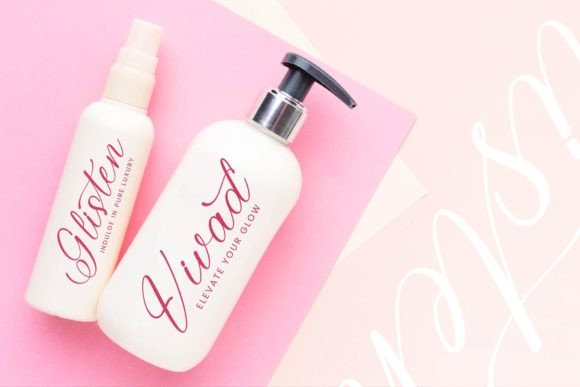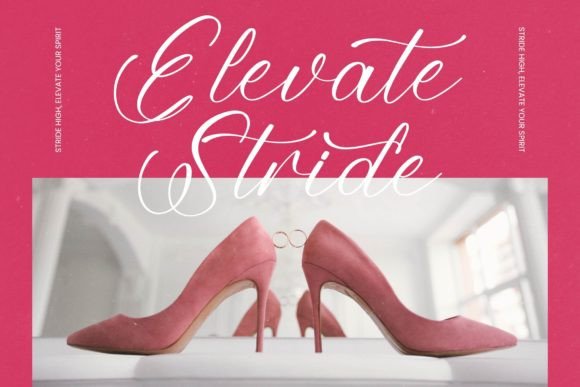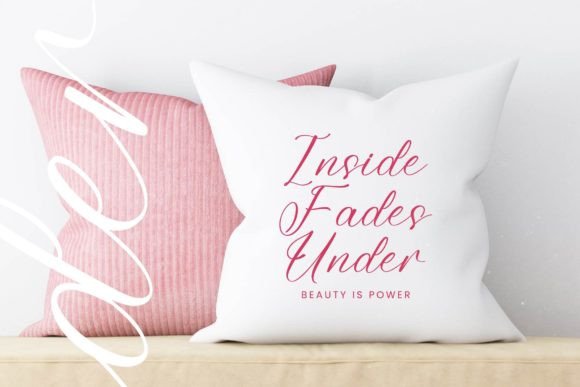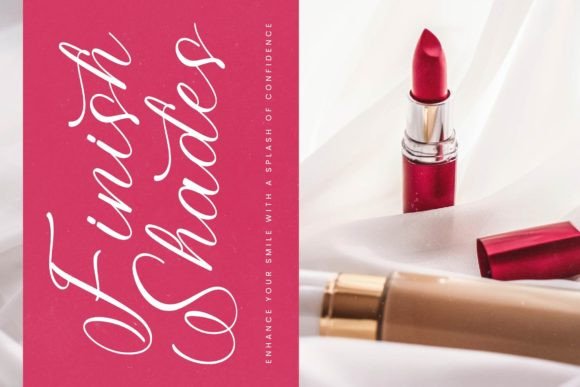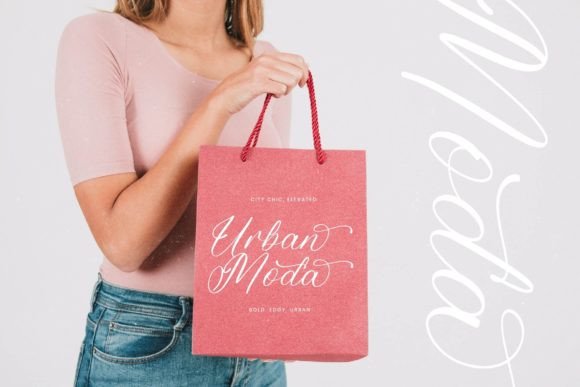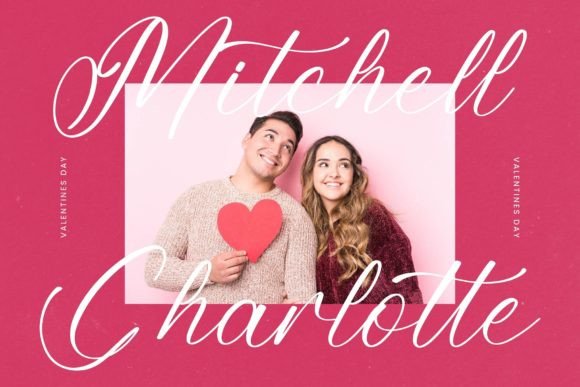
Unleashing Elegance with Blodie Natalia Font
Have you ever been browsing through a high-end fashion magazine, and suddenly, a beautiful script catches your eye? The way the letters flow, the curves, and the overall luxury feel – it’s like a breath of fresh air. This is exactly the kind of creative moment that sparked the development of Blodie Natalia Font, a Luxury Script font designed to elevate any project to new heights.
Blodie Natalia Font, crafted by Letterena, is a versatile and sophisticated font that’s perfect for logos, branding projects, and all sorts of creative endeavors. Whether you’re designing homeware, product packaging, or even a simple quote, this font adds a touch of elegance and refinement that’s hard to find in other fonts. For designers, Blodie Natalia Font is a valuable asset that can help you create stunning visuals that leave a lasting impression.
- Unique Characteristics: Hand-drawn, elegant script font with a touch of sophistication and femininity
- Font Style: Casual, Script
Blodie Natalia Font Review
First of all, I want to say that I was quite excited to dive into this font and see what it has to offer. Overall, I think it’s a solid choice for designers who want a elegant, sophisticated look for their projects.
- ✨ Unique character set: Blodie Natalia Font has a distinctive set of characters that will help you stand out from the crowd.
- ✨ Beautiful typography: The font has a beautiful, flowing design that will add a touch of elegance to any project.
- ✨ Good legibility: The font is easy to read, even at smaller sizes, making it perfect for body text and other large blocks of text.
- ⚠️ Limited language support: Unfortunately, Blodie Natalia Font doesn’t support many languages, which may limit its use for designers who need to work with multiple languages.
- ⚠️ Not ideal for display use: While the font looks great at smaller sizes, it may not be the best choice for display headings or titles, where a bolder, more attention-grabbing font may be needed.
Overall, I think Blodie Natalia Font is a great choice for designers who want a elegant, sophisticated look for their projects. While it may have some limitations, it’s a solid choice for body text and other large blocks of text.
For a more elegant look, use the Blodie Natalia Font for headings and pair it with a simpler font for body text.
For a more creative look, use the Blodie Natalia Font for custom illustrations and graphics.
For a more professional look, use the Blodie Natalia Font for headings and titles.
The Blodie Natalia Font is perfect for:
2. Luxury branding and marketing materials.
3. High-end product packaging and labels.
4. Elegant website headers and footers.
To get the most out of the Blodie Natalia Font, remember:
1. Use it sparingly for maximum impact.
2. Pair it with simple fonts for better readability.
3. Experiment with different font sizes and colors to create a unique look.
Alternatives to Blodie Natalia Font
Ostrich Sans is a sans-serif font that is highly legible and versatile. It is suitable for use in body text, headings, and titles. When to use: Use Ostrich Sans for clean and modern designs, particularly in digital interfaces and publications. Comparison: Ostrich Sans has a more geometric feel compared to Blodie Natalia Font’s script-like style. While Blodie Natalia Font is more ornate and decorative, Ostrich Sans is minimalist and easy to read.
Great Vibes is a script font that is elegant and sophisticated. It is suitable for use in titles, headings, and creative projects. When to use: Use Great Vibes for designs that require a touch of luxury and elegance, such as wedding invitations, event materials, and luxury brands. Comparison: Great Vibes has a more fluid and cursive feel compared to Blodie Natalia Font’s more rigid script style. While Blodie Natalia Font is more versatile, Great Vibes is more suited for formal and high-end designs.
Playfair Display is a luxurious serif font that is perfect for use in titles, headings, and creative projects. It is suitable for use in designs that require a touch of sophistication and elegance. When to use: Use Playfair Display for designs that require a sense of luxury and refinement, such as high-end fashion brands, luxury hotels, and fine dining establishments. Comparison: Playfair Display has a more elegant and refined feel compared to Blodie Natalia Font’s more playful and ornate style. While Blodie Natalia Font is more versatile, Playfair Display is more suited for formal and high-end designs.